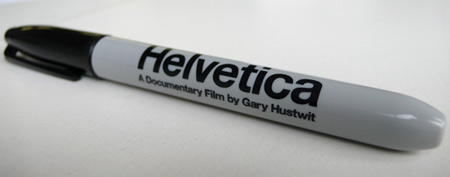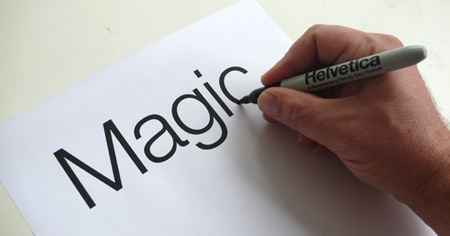
I sat down at the kitchen table to pay bills today and watched a video I found on Netflix called "Helvetica". It is a documentary on the font, including history and archives, plus interviews with many of the people that made it happen. Lots of signs in the video, of course. And, there are lots of interviews with people not so content to use Helvetica. I found it very interesting from start to finish.
Helvetica
Finally! A Sharpie that writes in Helvetica! Now if I could just find a brush that did a great script.
I like the "BEFORE" picture. . .it has more character and personality.